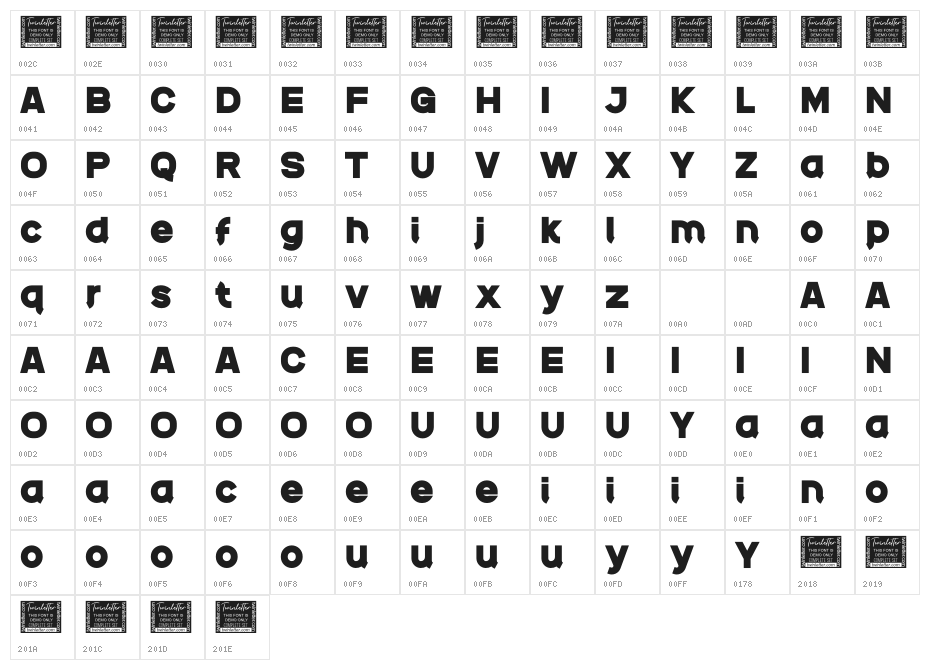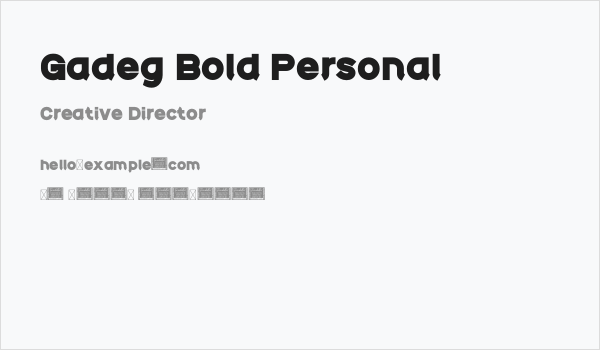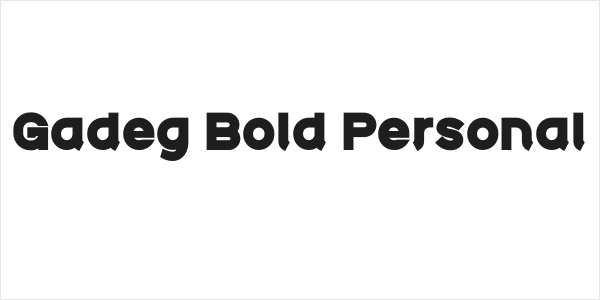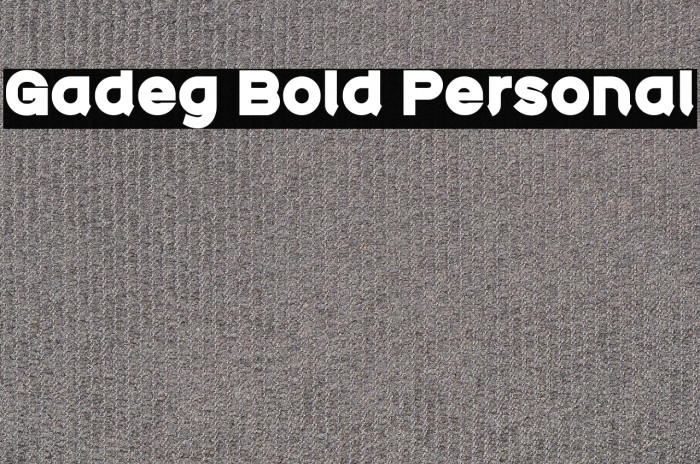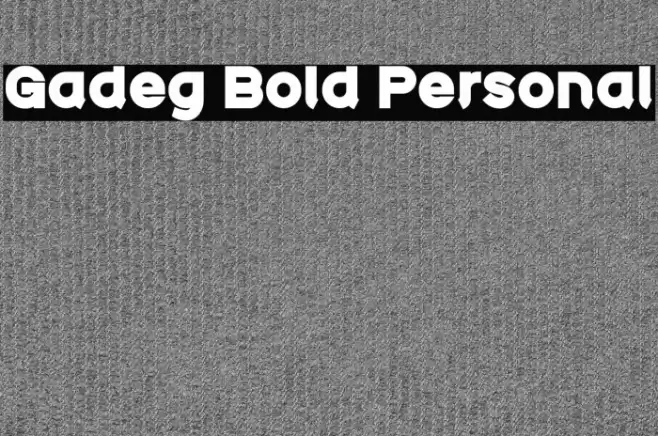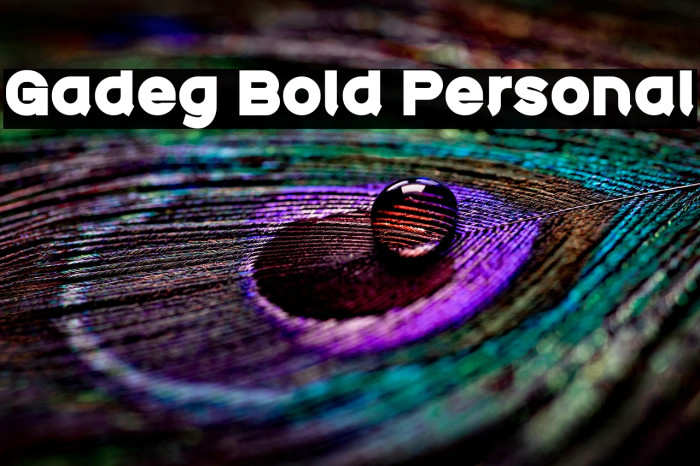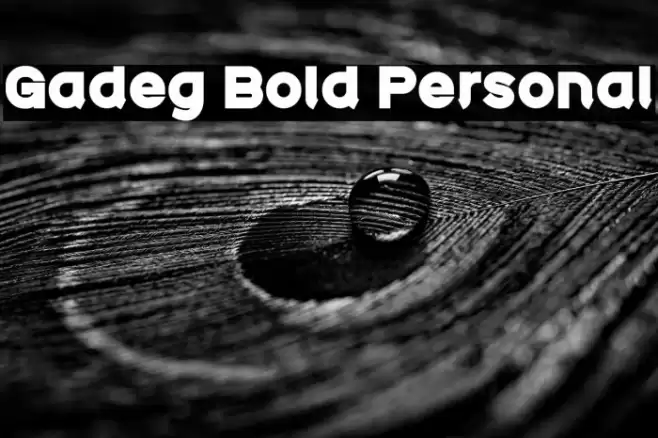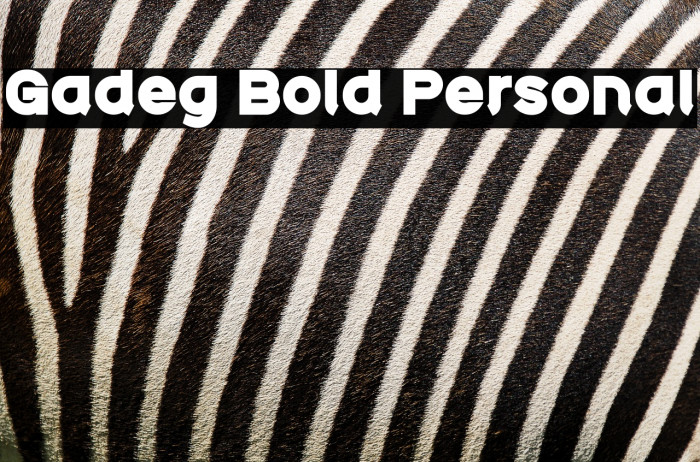
Gadeg Bold Personal Font
Gadeg Bold Personal Description
This font features a bold and striking design with thick, uniform strokes that create a strong visual impact. The uppercase and lowercase letters are crafted with a modern aesthetic, characterized by geometric shapes and clean lines. The font maintains a consistent weight throughout, providing a cohesive and balanced appearance. Its boldness makes it suitable for attention-grabbing headlines and titles. The characters are evenly spaced, ensuring readability and clarity. This font's contemporary style is ideal for projects that require a modern and assertive look.
| Proposed Projects | Ideal for branding, advertising, posters, and any design requiring a bold statement. |